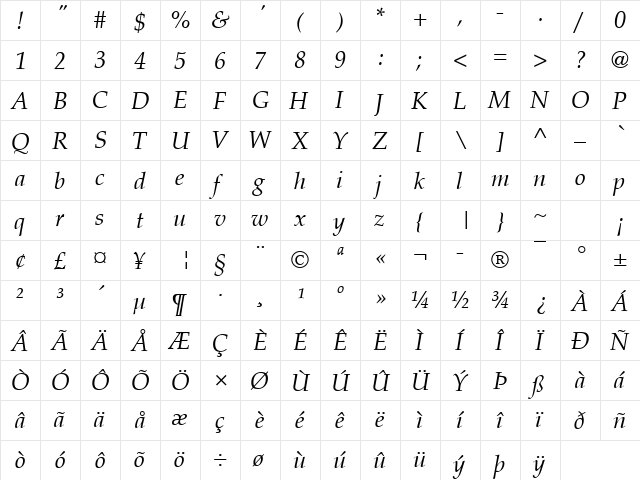
P052L Italic
Design Context for P052L Typeface
P052L offers clean, dependable letterforms without strong stylistic allegiance, making it a practical choice for designers who need flexibility. The dynamic lean of this cut emphasises speed and emphasis in any layout.